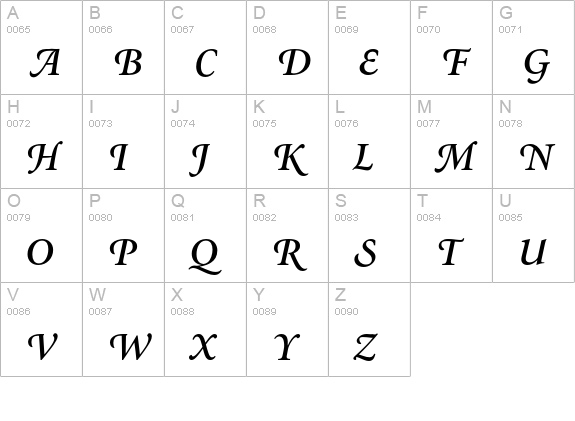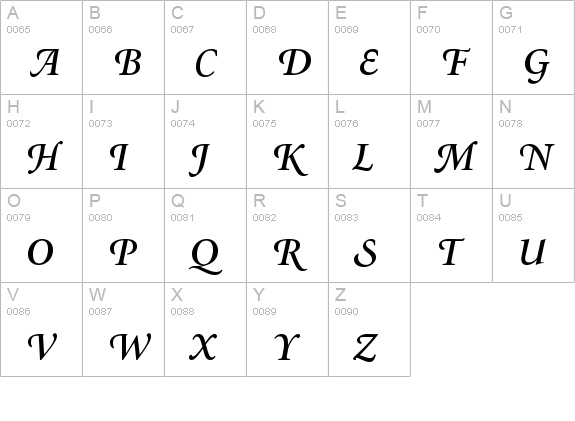
Minion Semibold Italic Swash is a sub-bold, structured, italic variant in the Minion typeface family \xE2\x80\x94 well suited to sub-headlines and emphasised passages.
Minion Semibold Italic Swash font is a bold and elegant typeface that exudes sophistication and charm. With its distinctive swashes and stylish italic design, this font is perfect for adding a touch of flair to your projects. Whether you're designing invitations, posters, or branding materials, Minion Semibold Italic Swash font will elevate your work to new heights. Best of all, this font is available for free download at FontsMarket.com. Don't miss out on the opportunity to enhance your designs with this beautiful and versatile typeface. Download Minion Semibold Italic Swash font today and let your creativity shine!